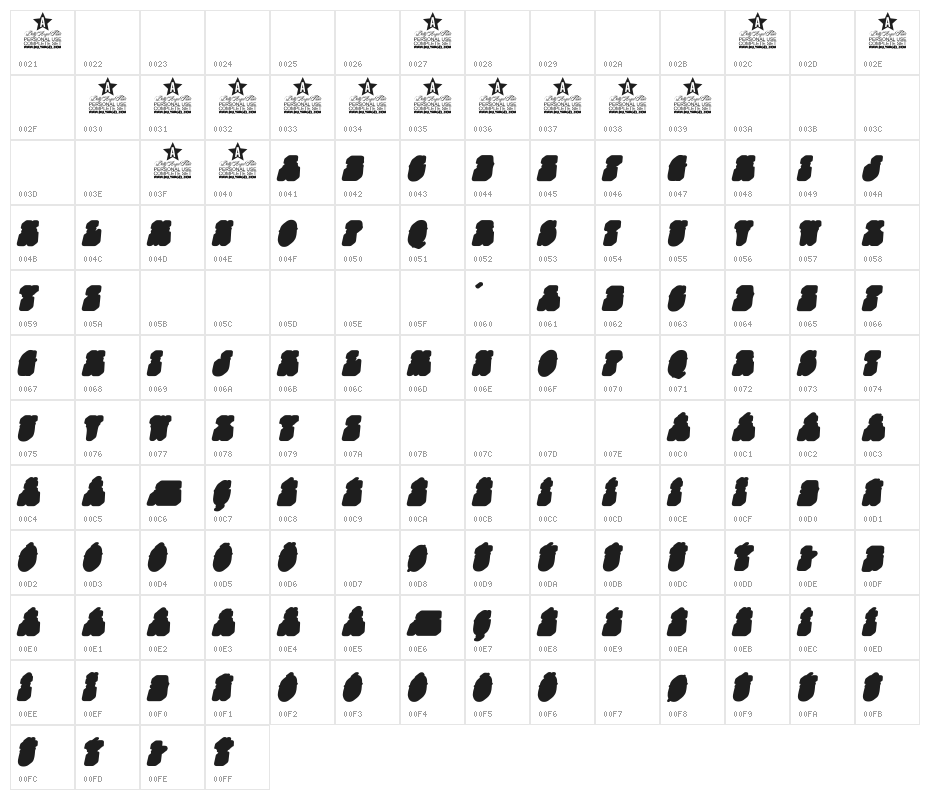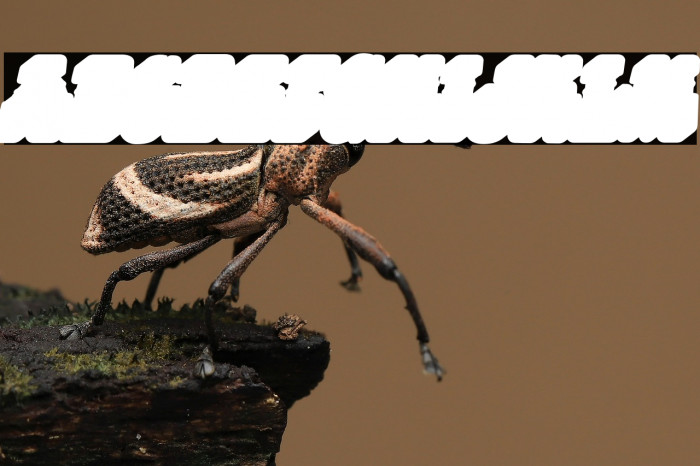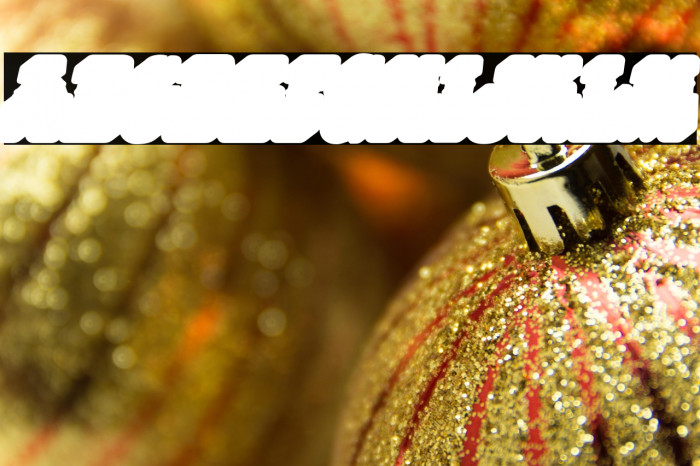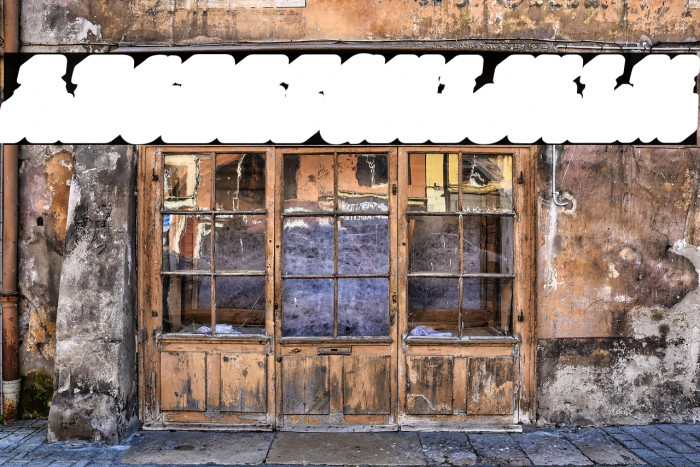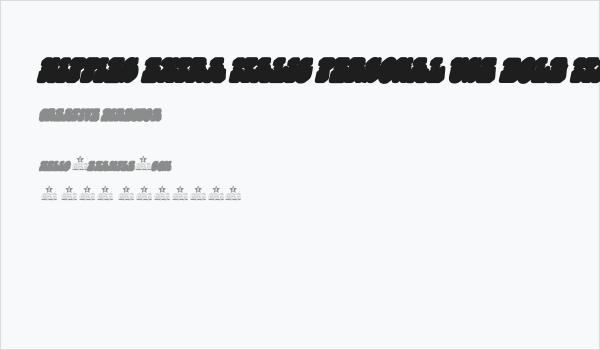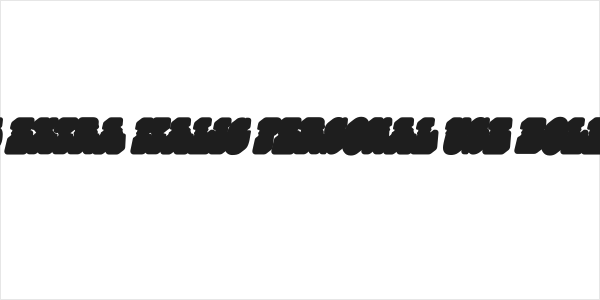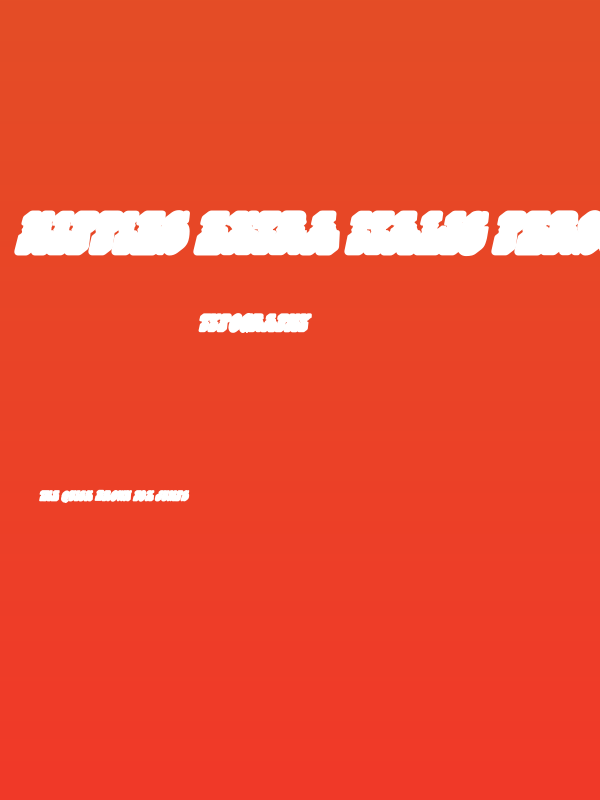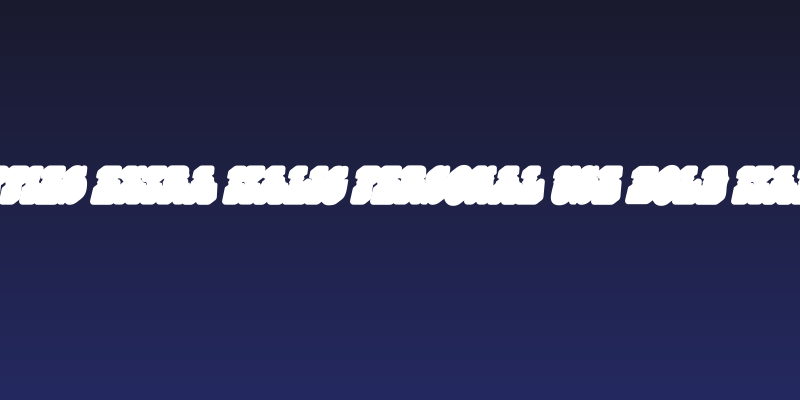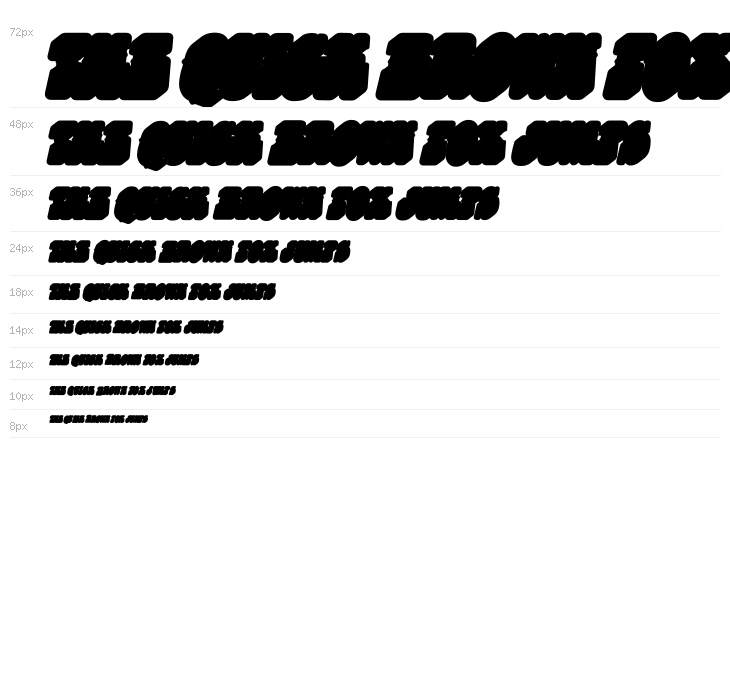
HIPPIES EXTRA ITALIC PERSONAL USE Bold Italic Font
HIPPIES EXTRA ITALIC PERSONAL USE Bold Italic Description
This font features a bold and italicized style with a distinctly retro and playful vibe. The characters are heavily weighted, creating a strong presence on the page. The italic slant adds a dynamic and energetic feel, reminiscent of the 1960s and 70s design aesthetics. The letters are closely spaced, contributing to a compact and cohesive look. This font is perfect for capturing attention and conveying a sense of fun and nostalgia. Its unique style makes it ideal for projects that aim to evoke a vintage or retro theme.
| Proposed Projects | Ideal for retro-themed posters, event flyers, album covers, and branding that seeks a nostalgic touch. |